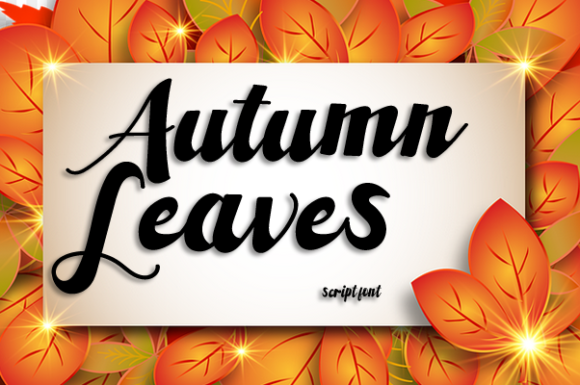
The Magic of Autumn Leaves Font
Have you ever stumbled upon a design that instantly sparks a wave of inspiration, making you want to create something beautiful? For many designers, that moment often comes when they discover a font that perfectly captures the essence of their idea. For me, that moment happened when I laid eyes on the enchanting Autumn Leaves Font. This ravishingly beautiful handwritten font has been a game-changer in my design journey, and I’m excited to share its magic with you.
As a versatile script font, Autumn Leaves Font is perfect for a wide range of projects, from delicate greeting cards to eye-catching headlines. Its romantic feel is guaranteed to add a touch of whimsy to your next design, making it a valuable asset for any designer looking to elevate their work.
Autumn Leaves Font Key Features
- Unique Characteristics: Elegant, cursive script with a natural, hand-drawn feel; ideal for invitations, wedding stationery, and other creative projects
- Font Style: Script, Calligraphy
Autumn Leaves Font Review
Overall, I’m quite pleased with the Autumn Leaves Font. It’s a beautiful, hand-drawn font that captures the essence of the season. ✨
- Unique and elegant design, perfect for fall-themed projects
- Works well for both digital and print projects
- Can be used for a variety of purposes, from invitations to signage
- May not be the best choice for body text, as it’s quite ornate and may be difficult to read at small sizes ⚠️
- Not suitable for projects that require a lot of bold, uppercase text ⚠️
Overall, I think the Autumn Leaves Font is a great choice for projects that need a touch of autumnal elegance. While it may not be perfect for every project, it’s a beautiful and versatile font that’s sure to impress.
Tips for Getting the Most Out of the Autumn Leaves Font
The Autumn Leaves Font is perfect for designs related to fall, Halloween, or harvest themes. To get the most out of the font, try pairing it with autumn-colored backgrounds and images of leaves or pumpkins.
The Autumn Leaves Font is commonly used in:
- Invitations and greeting cards for fall and Halloween events.
- Brochures and flyers for harvest-themed businesses.
- Designs for fall-themed social media posts and ads.
Playfair Display is a high-end, elegant font ideal for luxury branding, high-end fashion, and premium products. It features intricate details and connections between letters, giving it a sophisticated and refined feel. Compared to Autumn Leaves Font, Playfair Display is more formal and less whimsical, making it suitable for high-end projects.
Cambria
Cambria is a classic, serif font that conveys professionalism and sophistication. It’s suitable for formal documents, corporate branding, and educational materials. Compared to Autumn Leaves Font, Cambria is more straightforward and less ornate, making it a great choice for projects that require a traditional and serious tone.
Great Vibes is a modern, script font perfect for creative and artistic projects. It features a flowing, handwritten feel that’s ideal for quotes, headings, and titles. Compared to Autumn Leaves Font, Great Vibes is more casual and less structured, making it suitable for projects that require a relaxed and friendly tone.
Bodoni Moda
Bodoni Moda is a elegant, sans-serif font that’s perfect for fashion, beauty, and lifestyle branding. It features a modern, sleek design that’s ideal for headings, titles, and labels. Compared to Autumn Leaves Font, Bodoni Moda is more modern and less ornate, making it a great choice for projects that require a clean and sophisticated look.
Yes, the Autumn Leaves font is designed for both print and digital applications. It features a high level of detail and intricate design elements, making it suitable for a wide range of projects, including business cards, posters, logos, and digital interfaces.